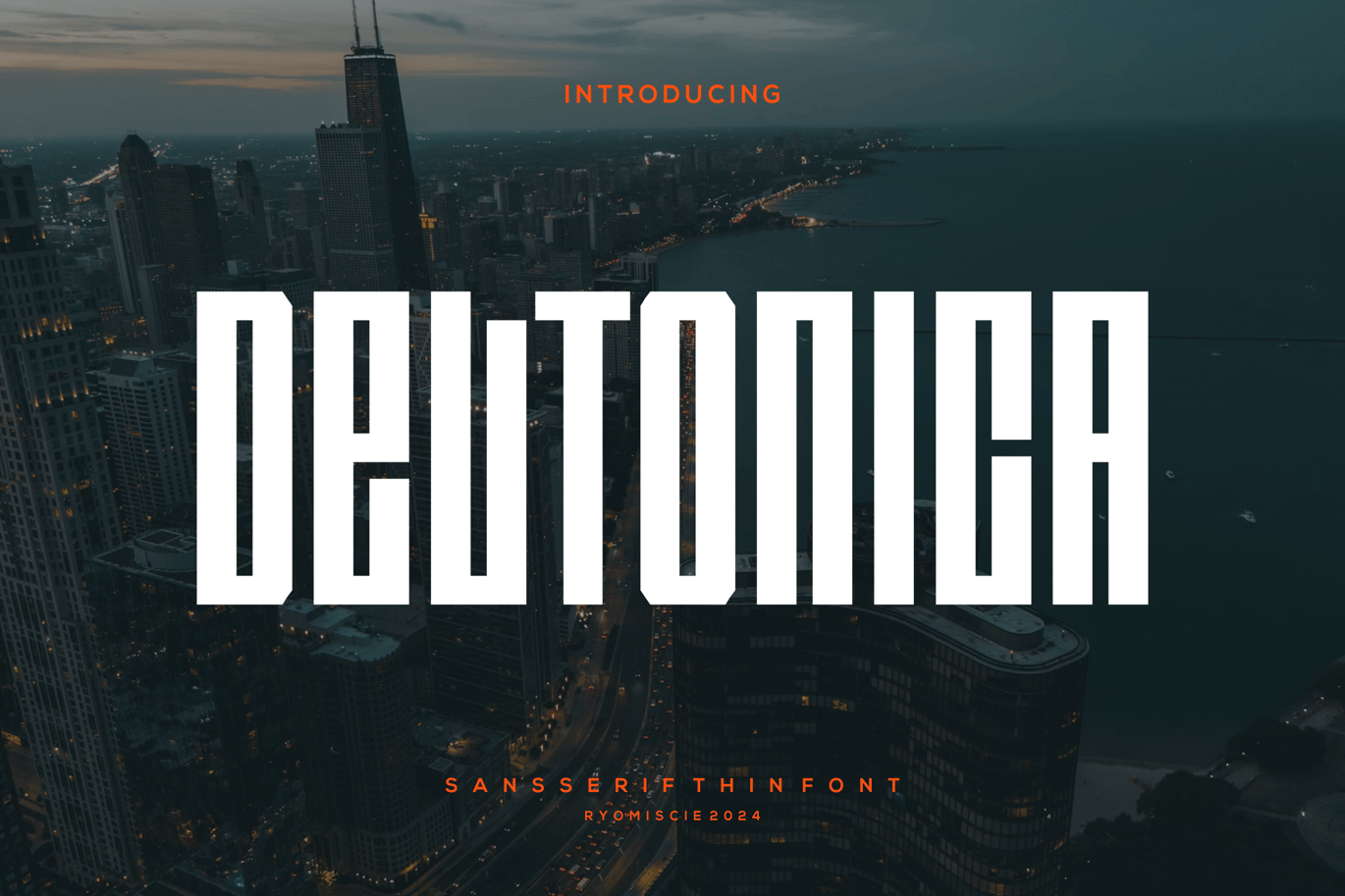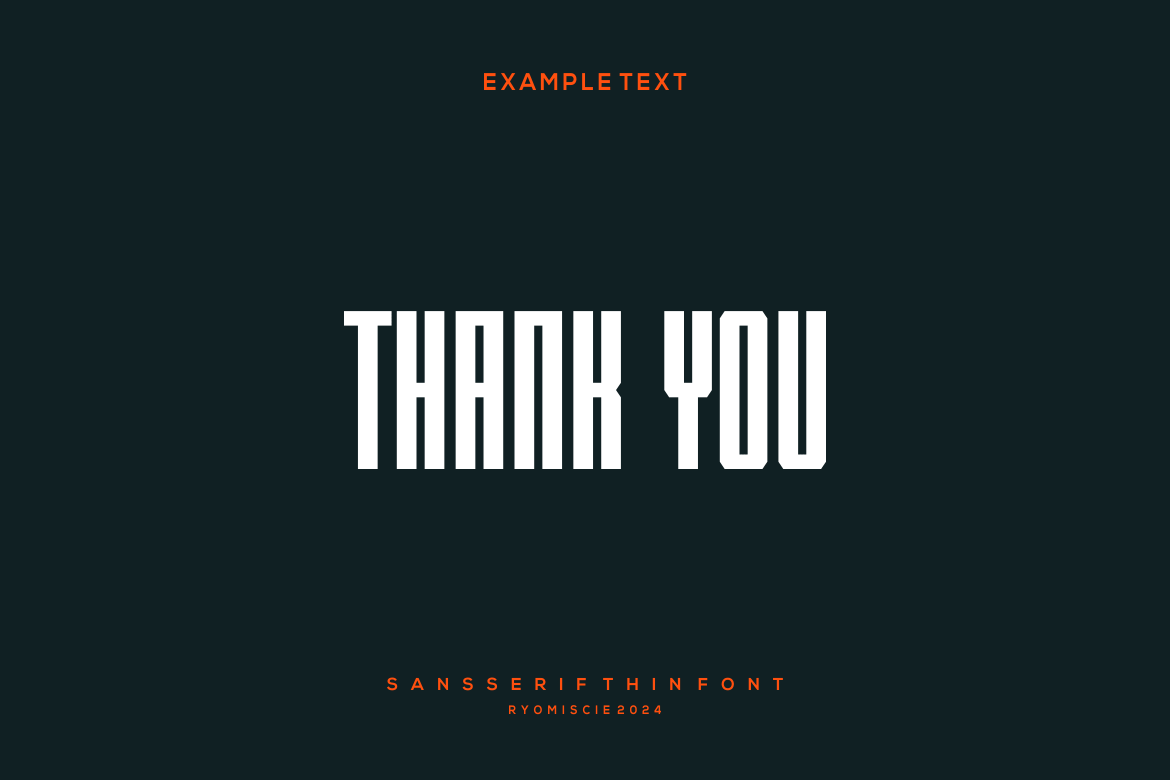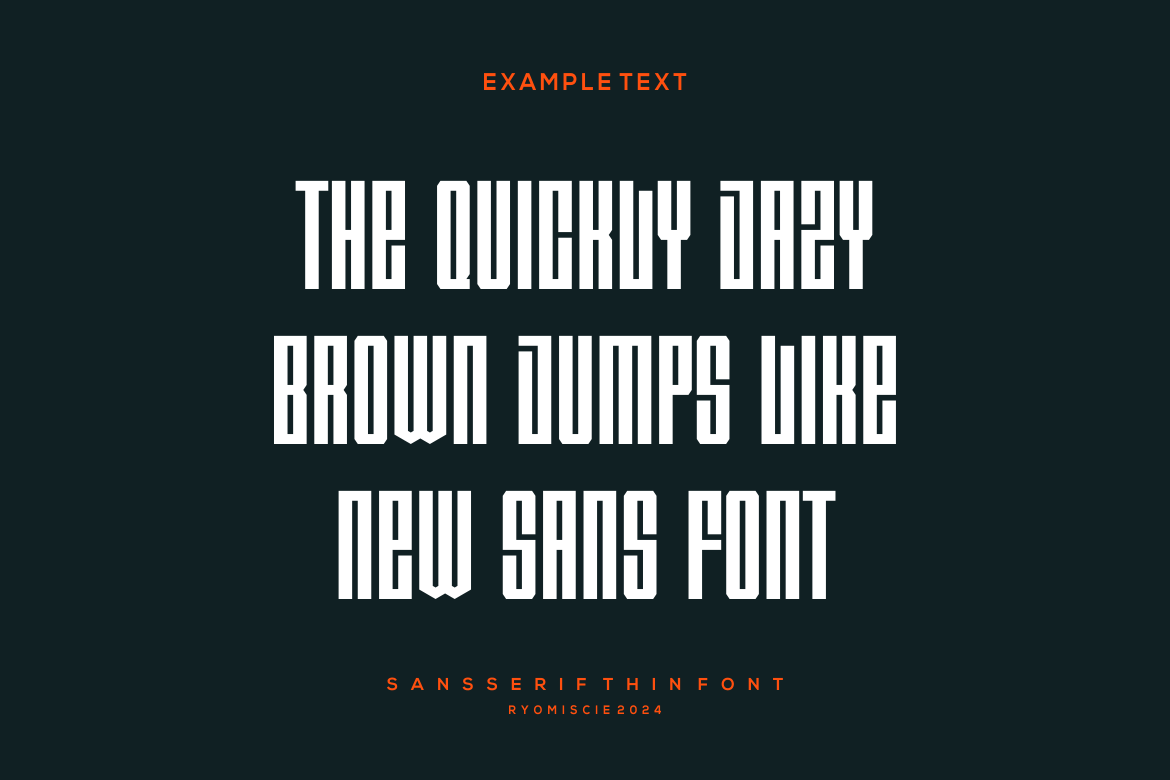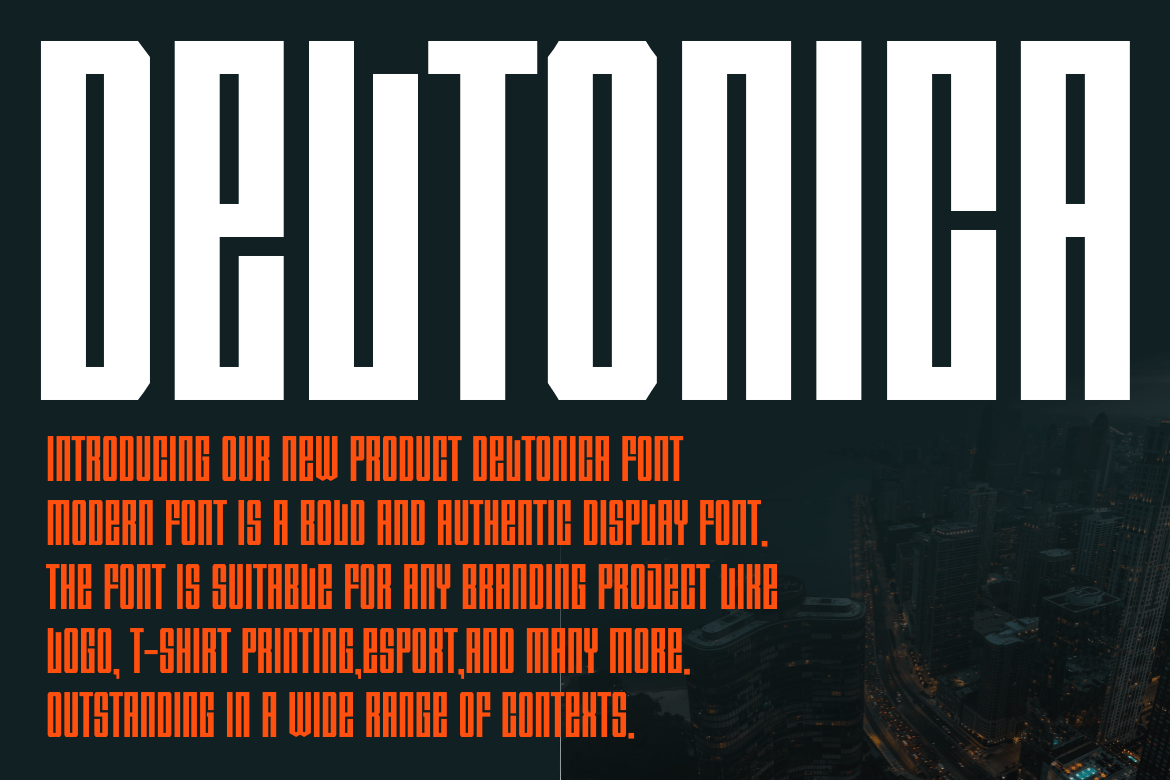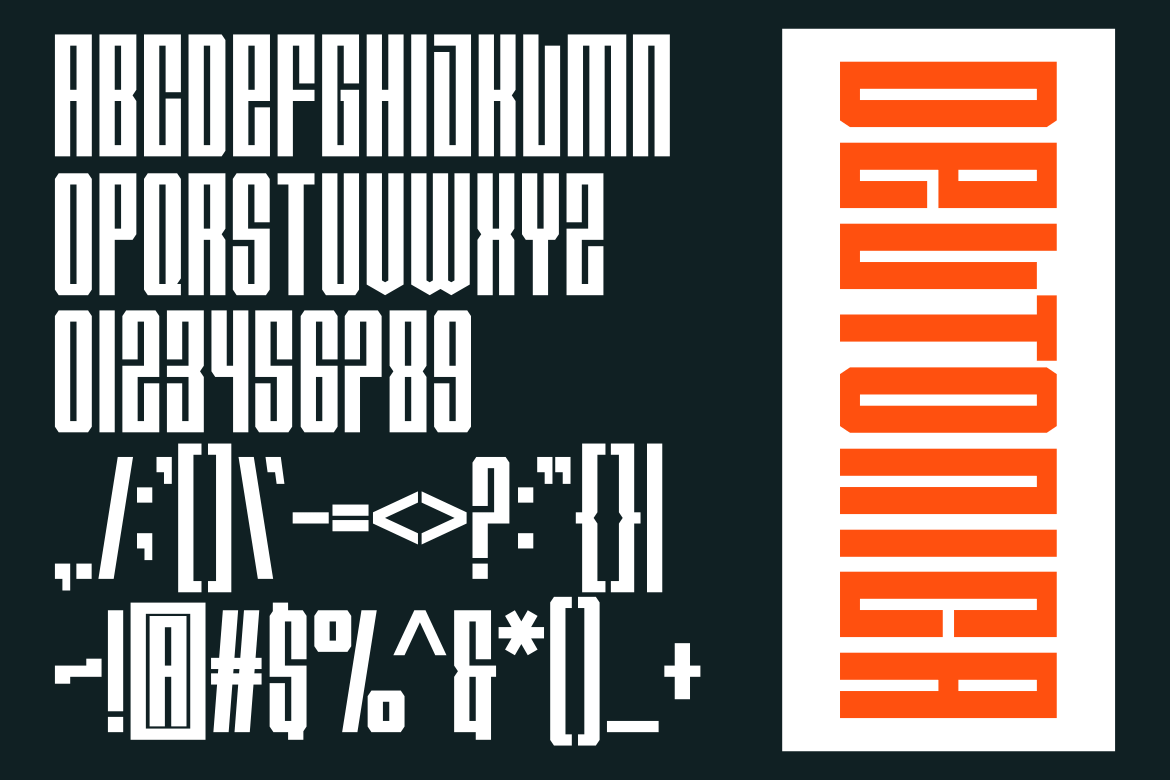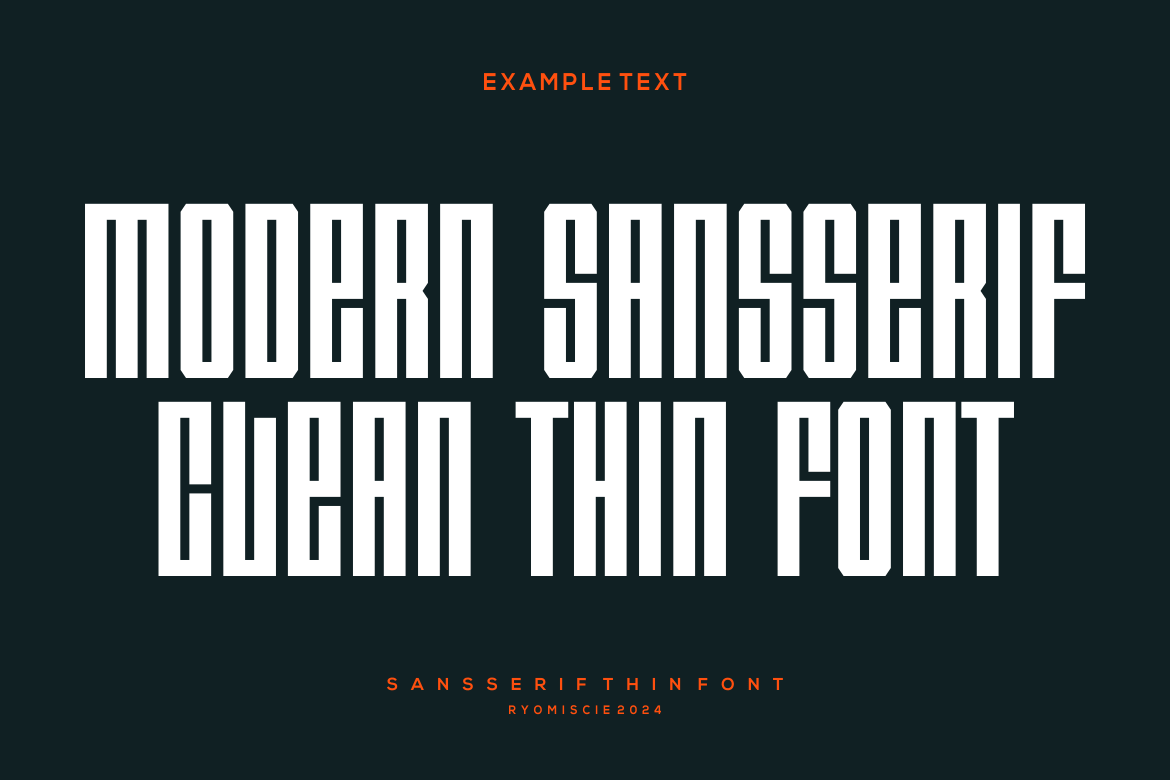
Deltonica – Modern Sans Serif Thin Font
Introducing our new product Deltonica Font – Modern Sans Serif Thin Font
Deltonica Font – Modern Sans Serif Thin Font is a bold and authentic display font. The font is suitable for any branding project like logo,
t-shirt printing, esport, and many more. outstanding in a wide range of contexts.